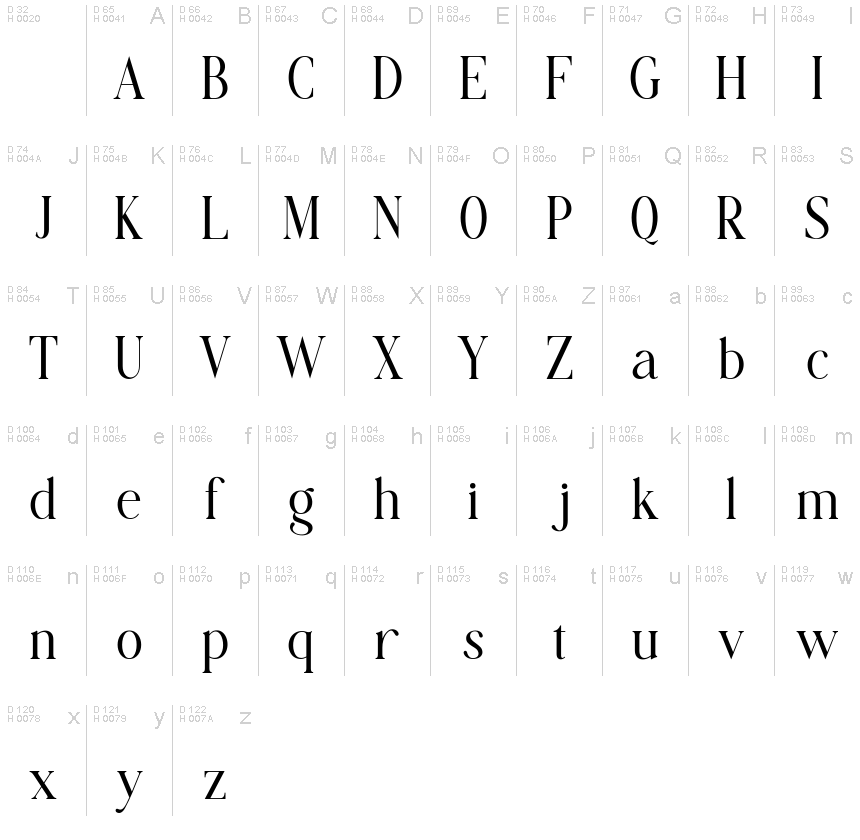
Flawsome Regular Regular
Flawsome, crafted by Achmad Yani, is a serif font that dances between the elegant and the playful. Its serifs are distinct yet not overpowering, giving it a classic touch with a modern twist. The letters carry a certain grace, making them perfect for designs that demand sophistication with an undercurrent of whimsy.
This font's aesthetic appeal lies in its balance of tradition and innovation, making it versatile for applications ranging from branding to editorial design. Whether gracing the cover of a novel or adding character to wedding invitations, Flawsome brings personality to print and digital media alike. It stands out in creative projects where a touch of flair is desired without compromising on readability and class.